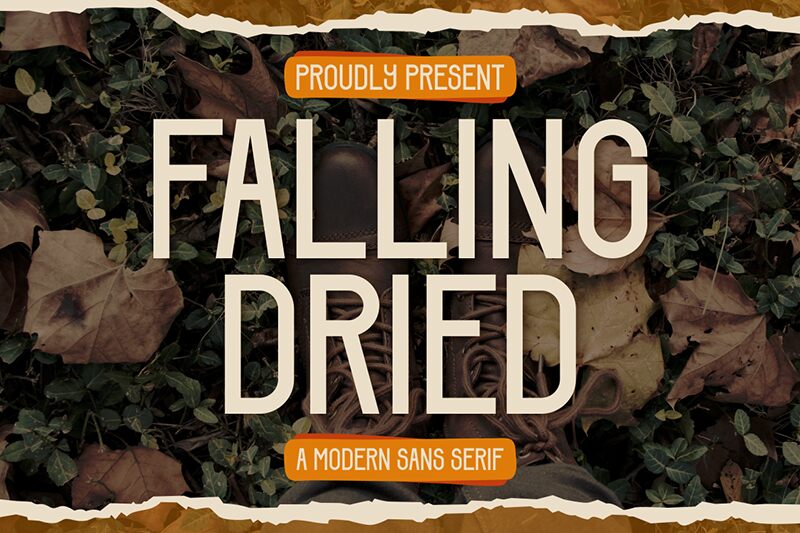
Falling Dried
Falling Dried font by Gilang Ternadho is a modern, geometric, minimalist sans serif that offers sleek elegance for every text. This condensed font can communicate more with less for an understated message that does the job precisely. Designed to perfection with subtle details, it remains refined and easy on the eye in any context; personal or commercial.
Unleash the power of Falling Dried with all of your advertising ideas, social media content, website blogs and article texts, book publication purposes, presentations design templates, packaging ideas and labels. Immediate engagement is expected when its features get highlighted on posters and banners or stand out through digital spaces as well!